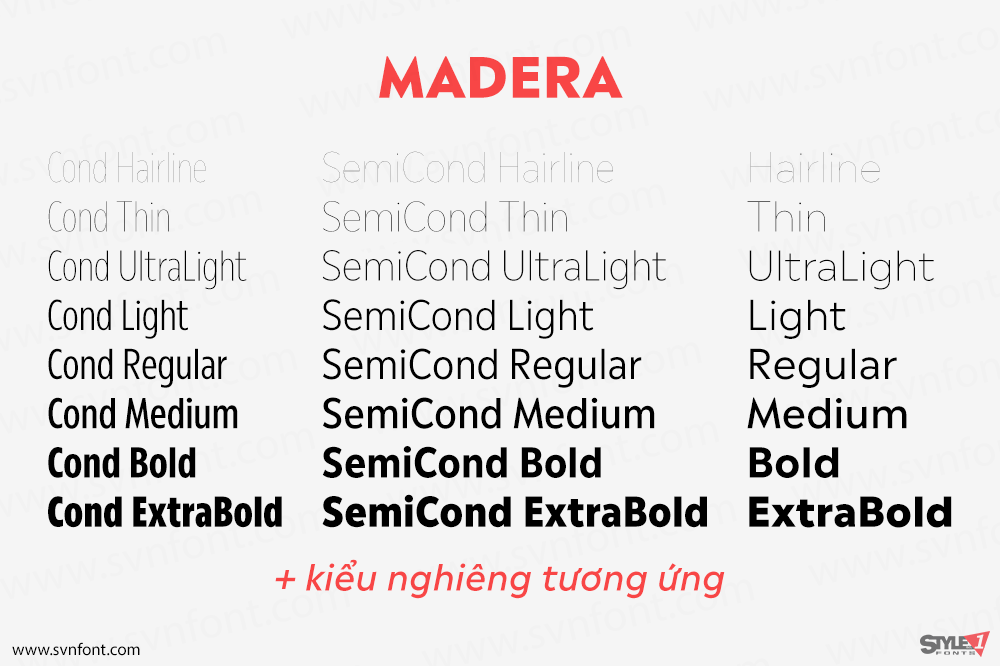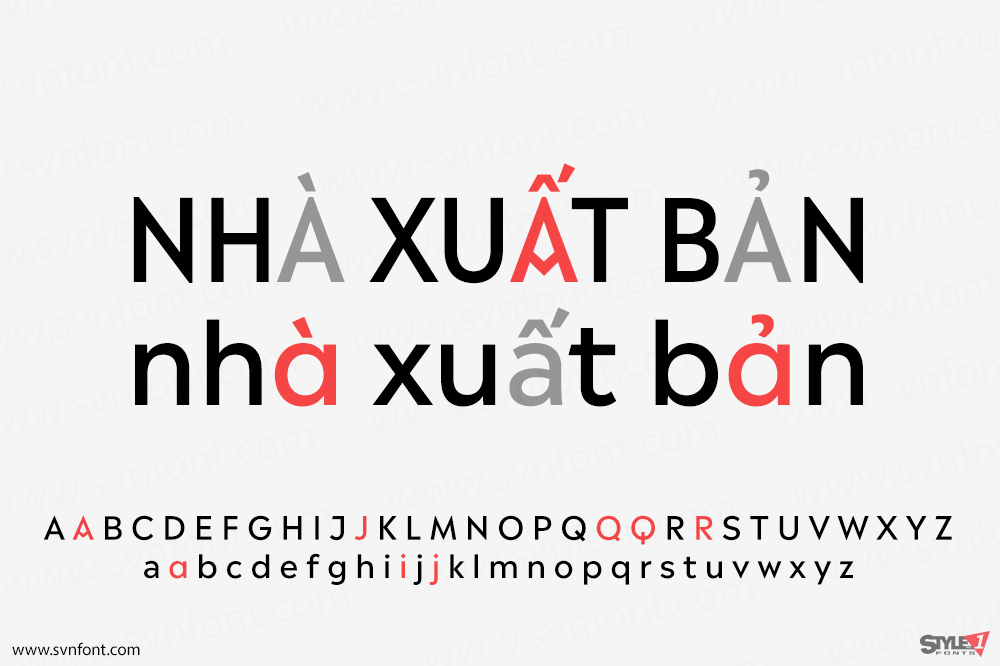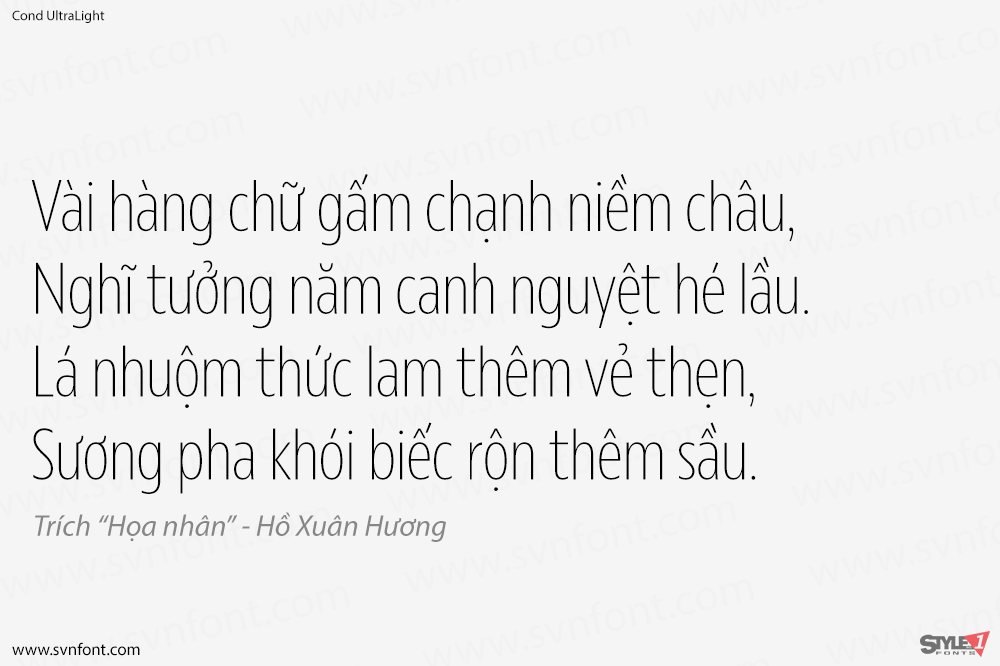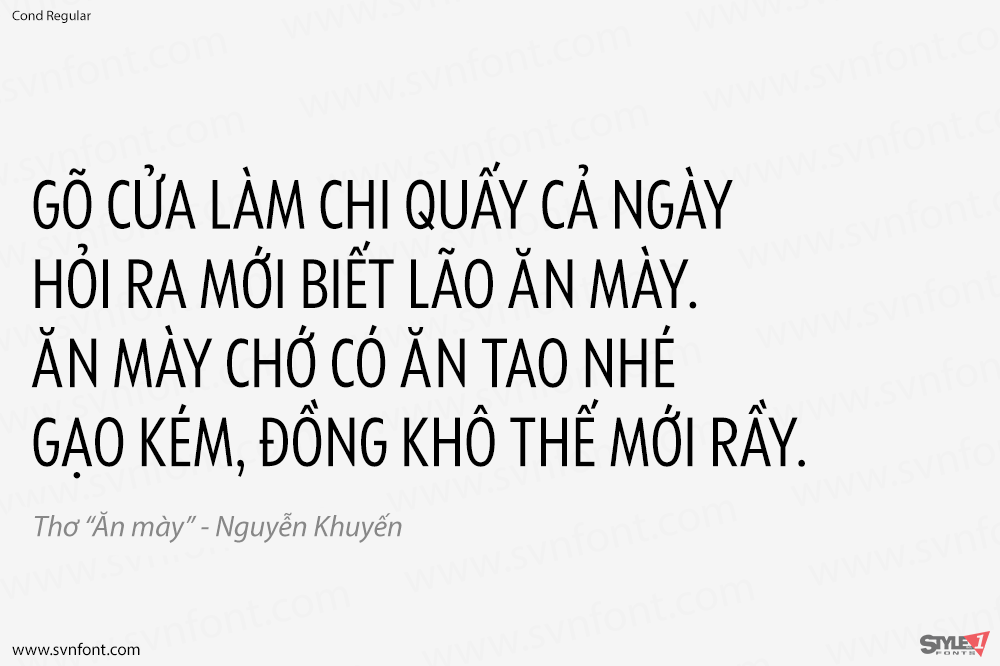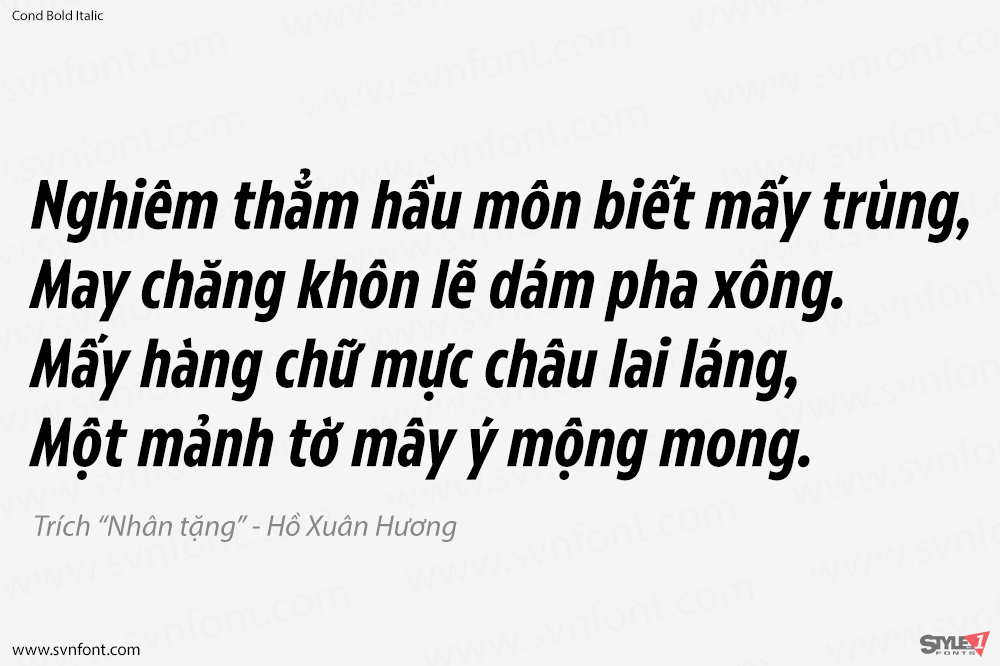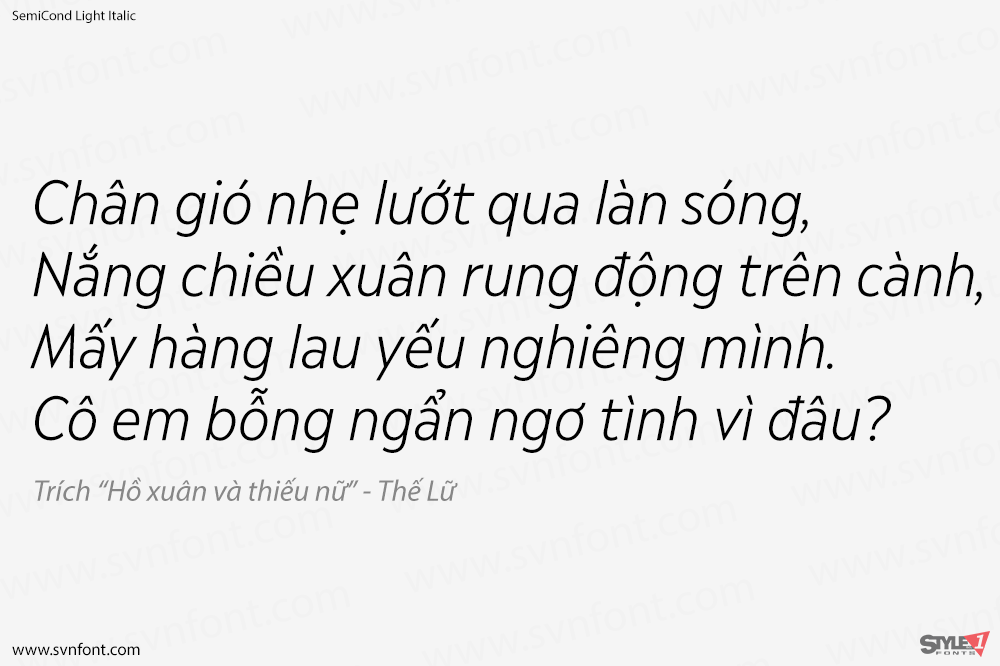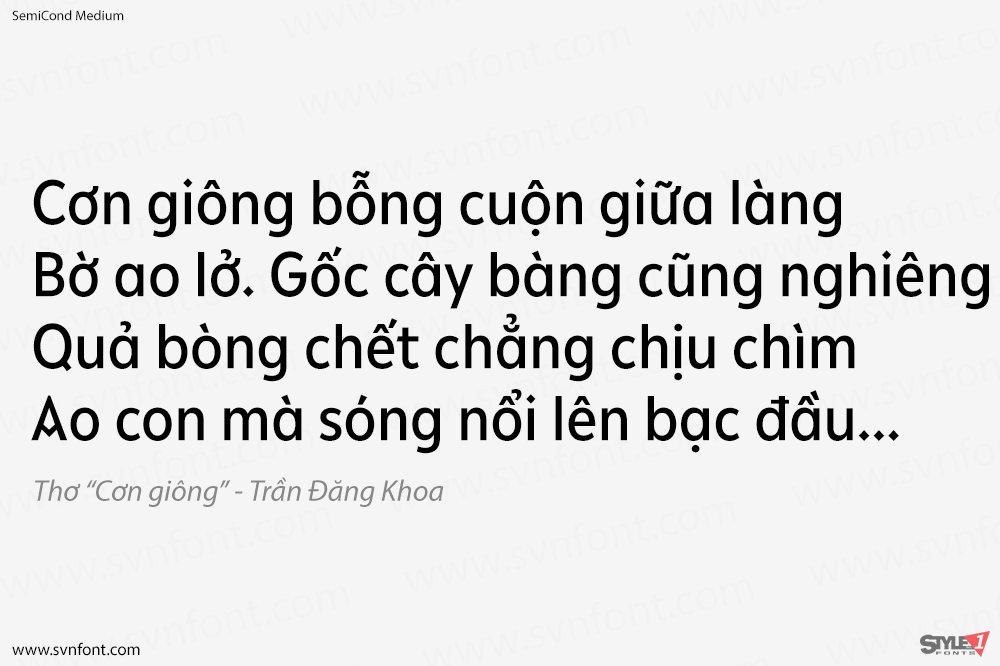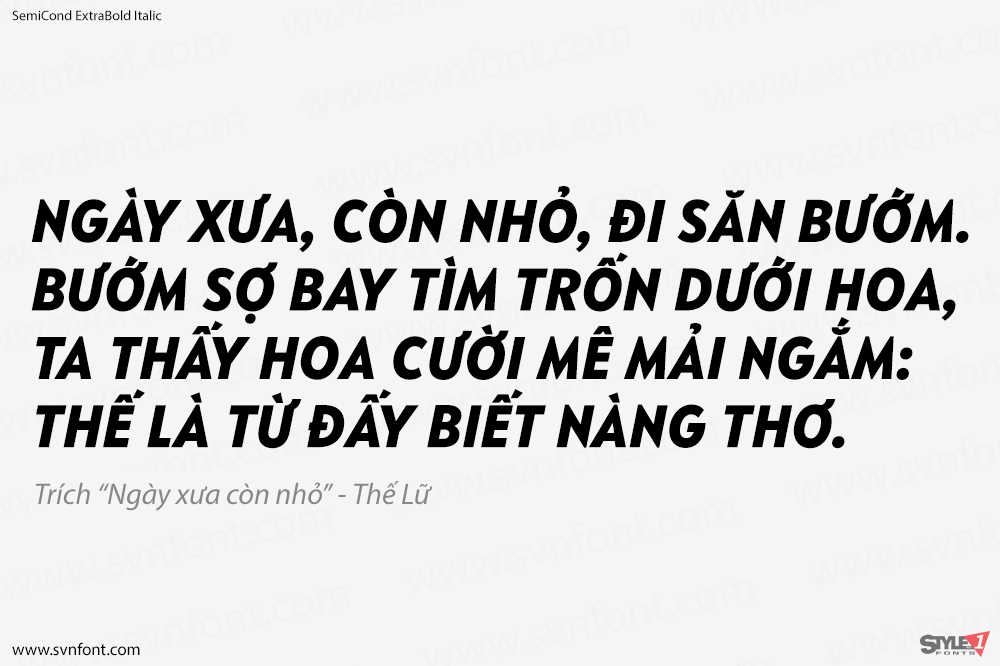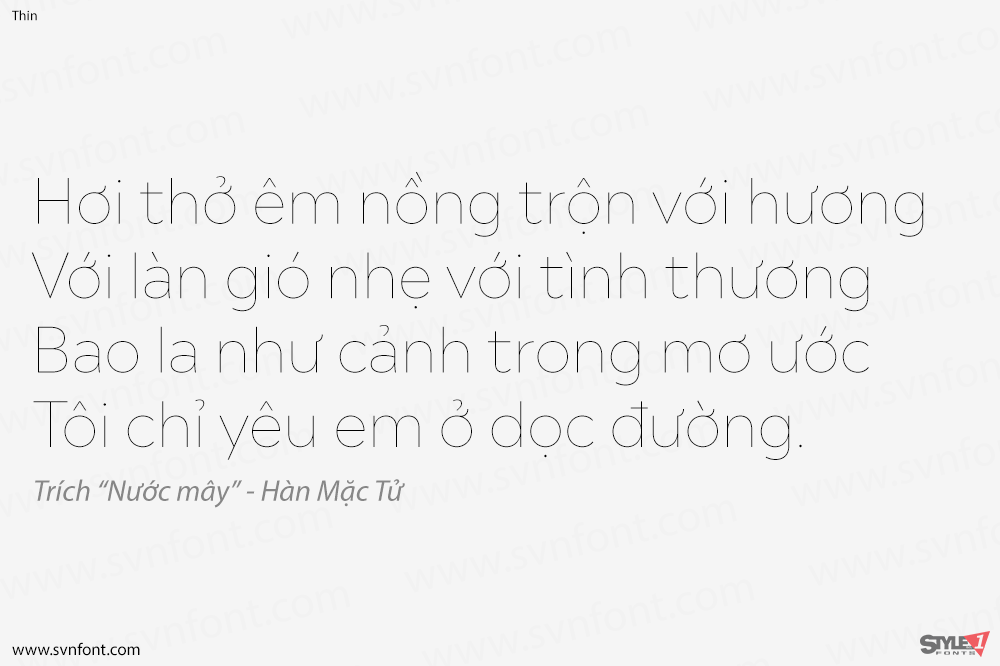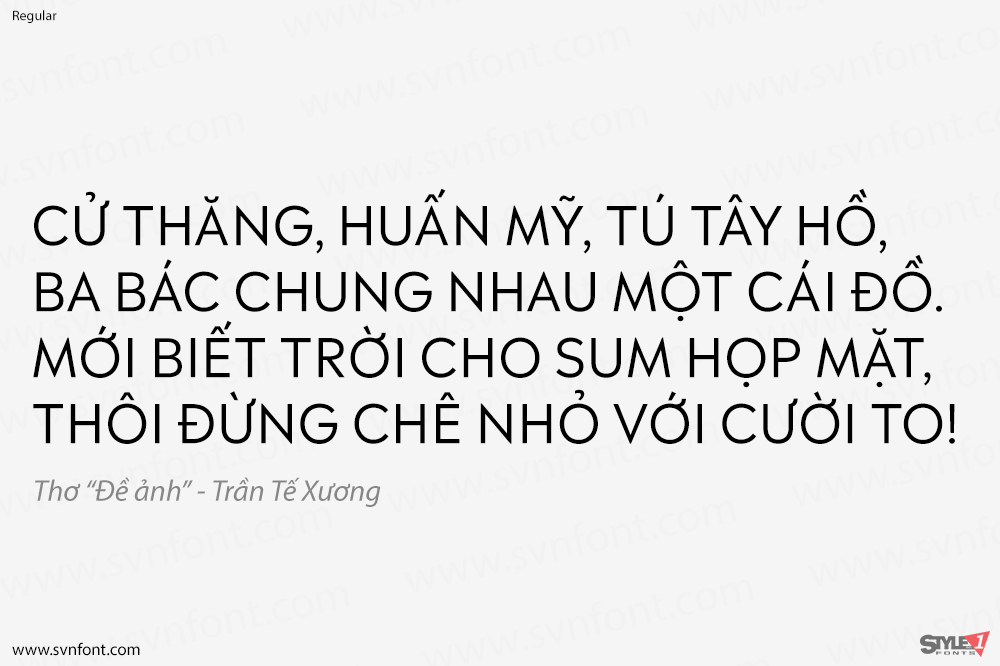
[Việt hóa] SVN-Madera (48 fonts)
Malou Verlomme designed Madera with graphic designers in mind – drawing on his decade of experience designing bespoke type to create a versatile, easy-to-use geometric sans serif that ticks off a long list of branding requirements.
Its sharp apexes add some flavour to the design, which offers an honest, trustworthy tone of voice – but with a twist. “The design doesn’t go out of its way to attract attention, but is still very solid,” explains Verlomme. “It still has a fair amount of warmth and personality, in a very understated manner. If you’re a large corporation, with a typeface being used in many different environments, you want something that’s easy to use but can sustain such a large amount of visibility.”
Nhà thiết kế: Malou Verlomme